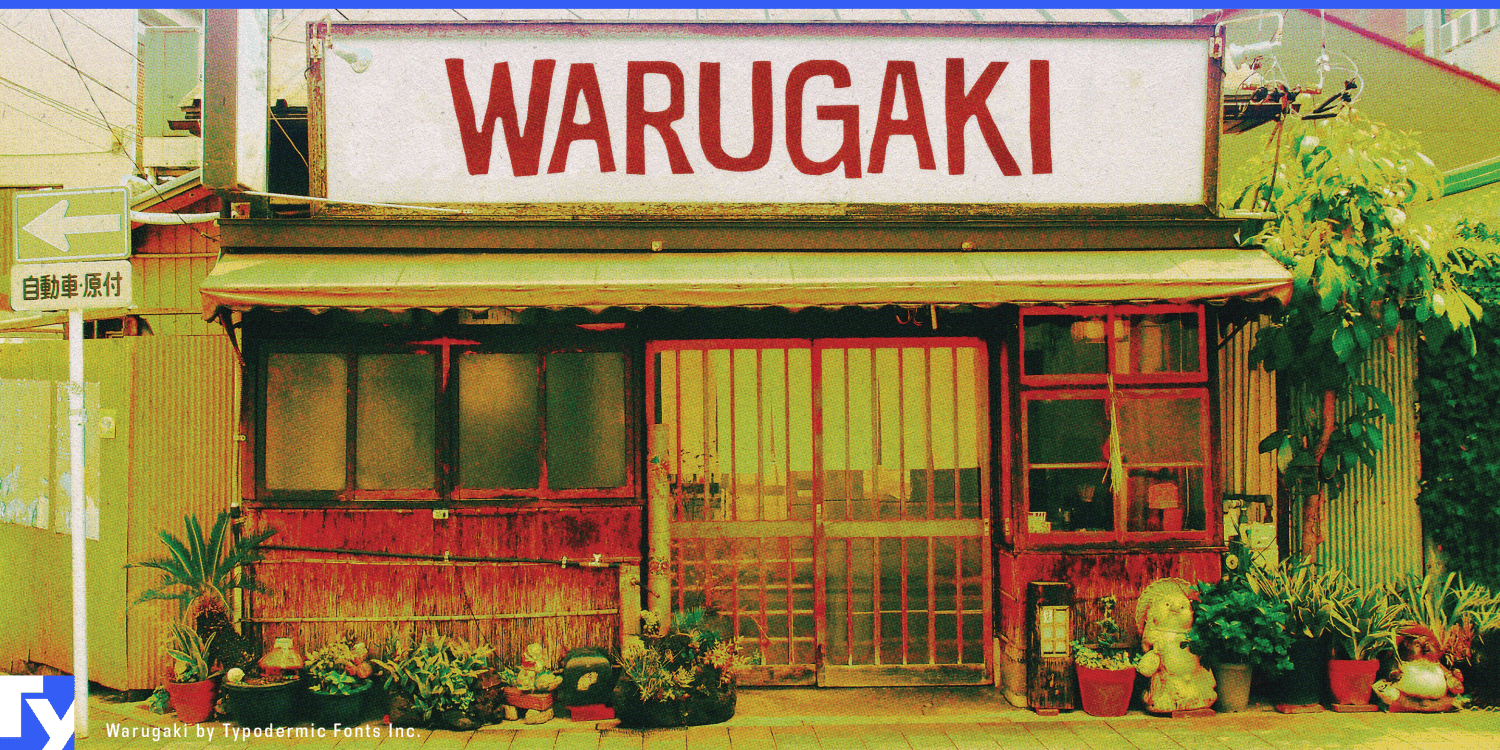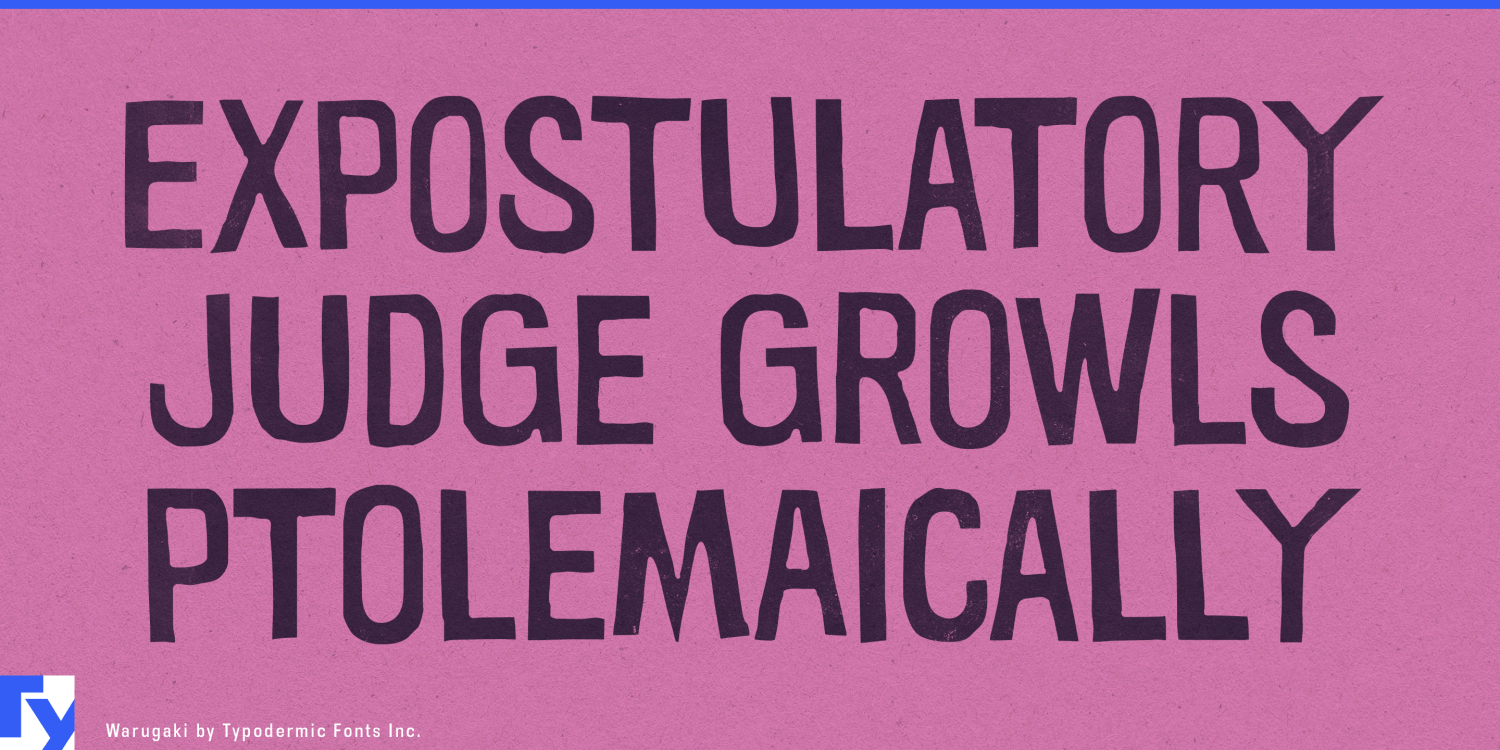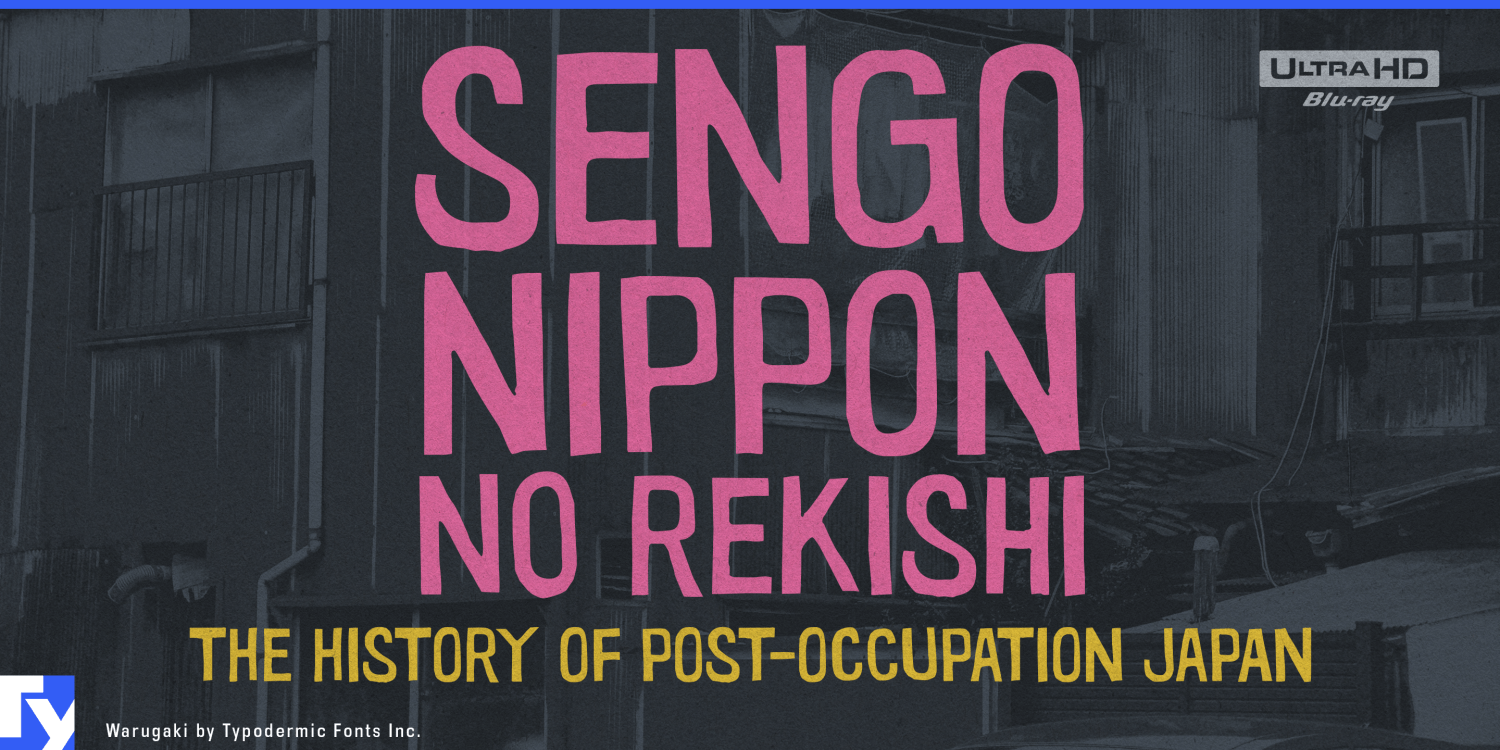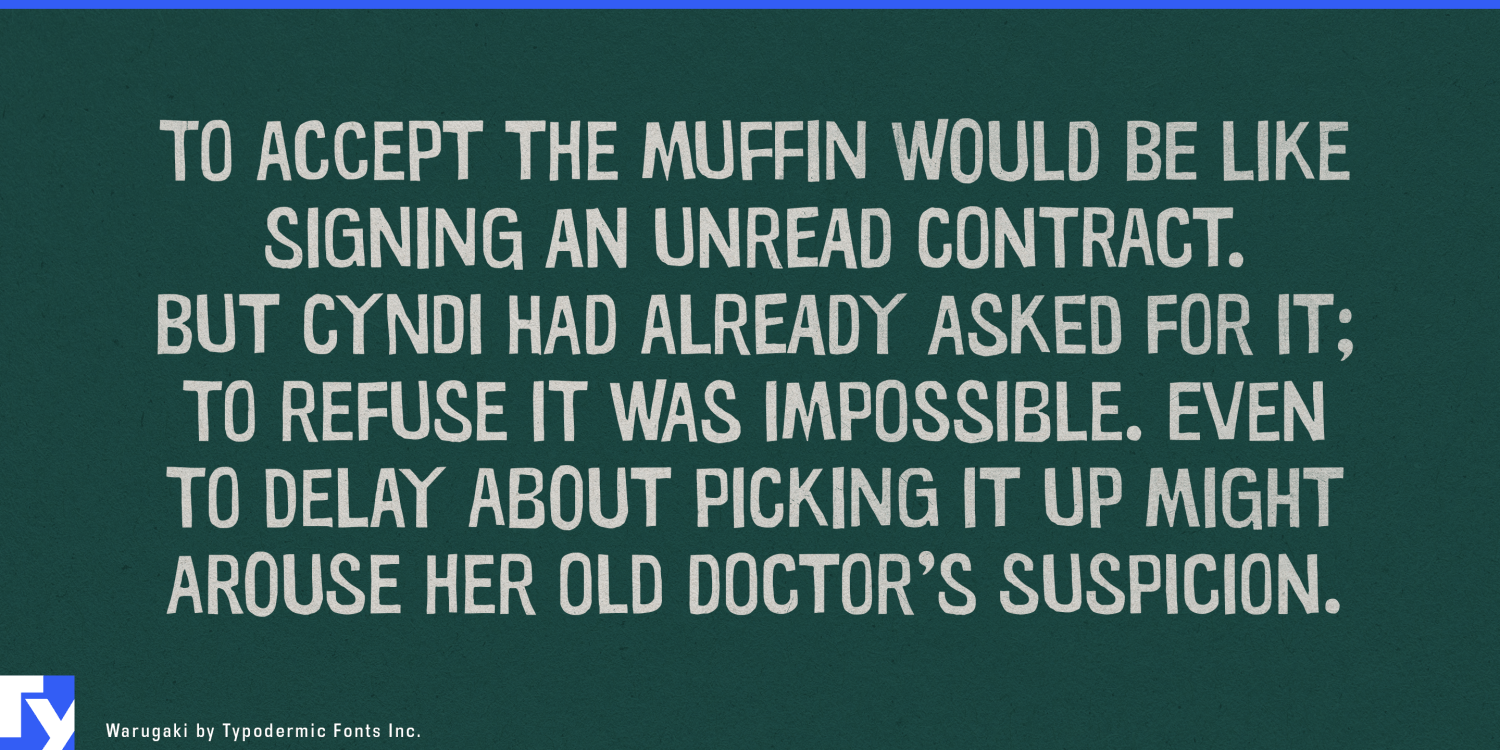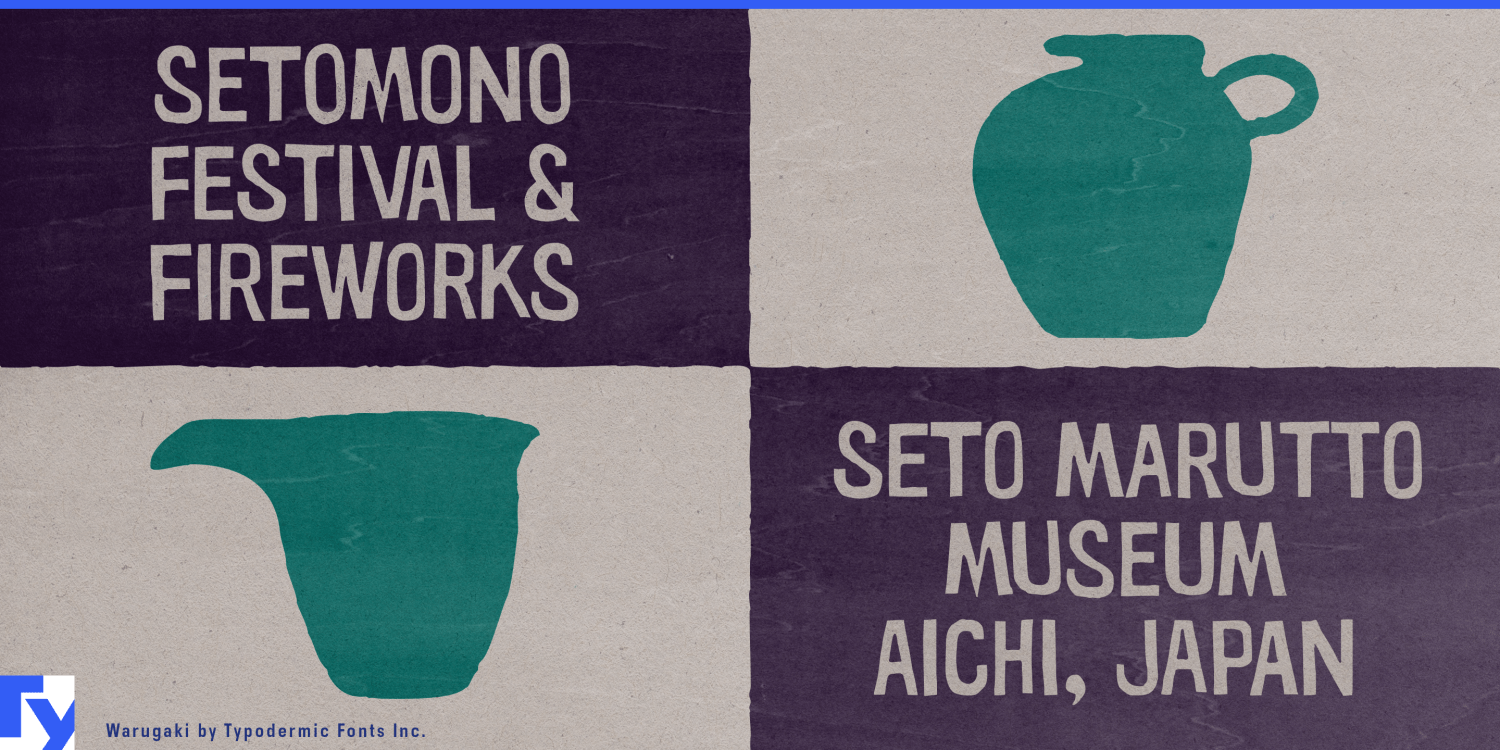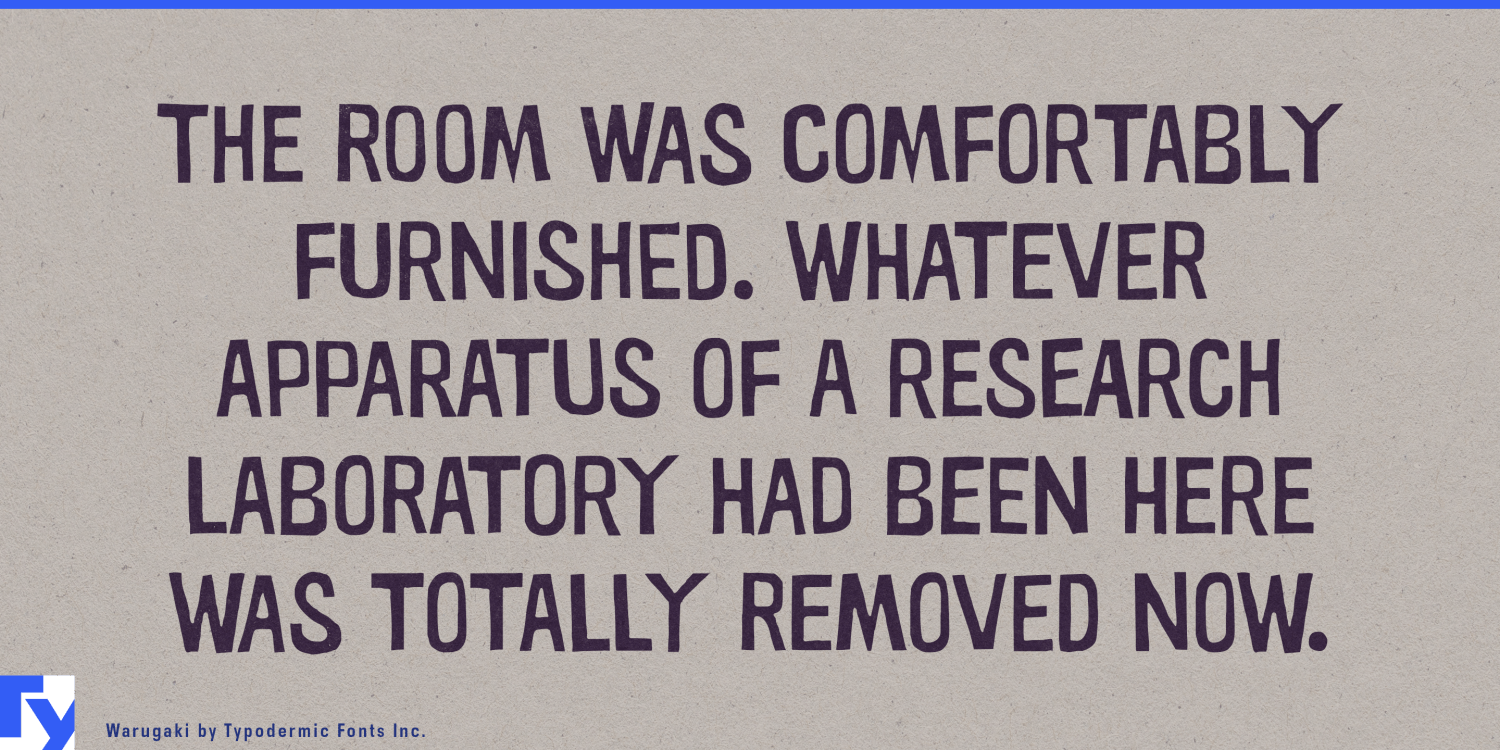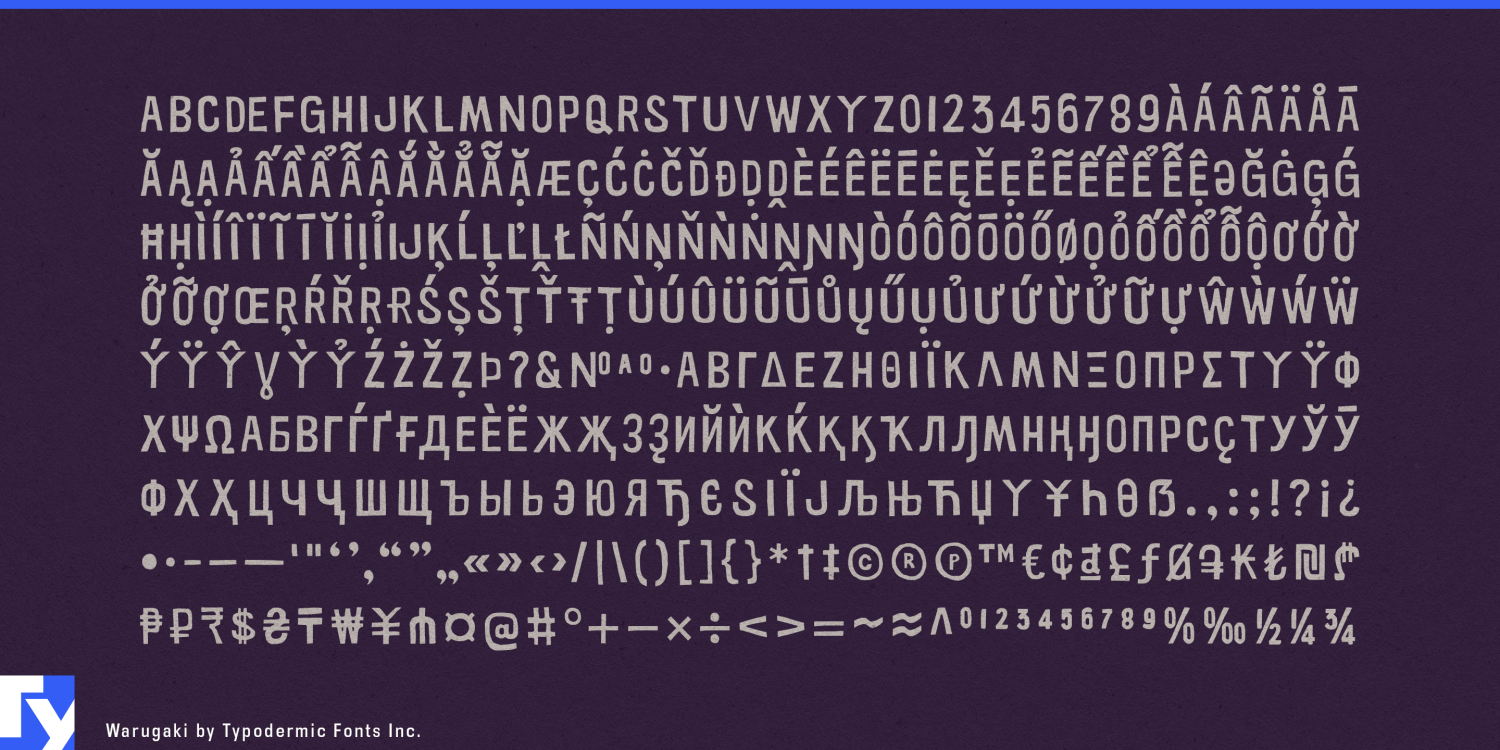
Warugaki
Font Family by Typodermic
Warugaki is for Japanese heritage projects where the English lettering needs to belong to the period too.
A carefully researched Shōwa-era identity can fall apart when contemporary Latin typography is dropped beside old Japanese graphics. A clean modern grotesque looks newly added; generic distressed lettering can push the design toward American workwear or punk; faux-Asian details turn the Japanese connection into caricature. Warugaki takes another route. Its compressed rhythm, carved negative spaces and rough printed surface draw on mid-century Japanese display lettering while remaining unmistakably Latin.
That makes it especially useful for Japanese automotive and motorcycle heritage. Manufacturer museums, historic-model exhibitions, anniversary campaigns, heritage-parts programs and archive merchandise often combine newly written English with photographs, advertisements and brochures from the 1950s through the 1970s. Warugaki can handle model names, decade headings, exhibition titles and campaign phrases without making a Japanese motorcycle or compact car look as though it came from an American hot-rod shop.
Camera, audio and electronics archives offer a similar role. Japanese camera makers, hi-fi companies, musical-instrument manufacturers and consumer-electronics brands can use Warugaki for model-family headings, dates, anniversary graphics and short display phrases that need to sit comfortably beside period product photography.
Film, television and games set in postwar Japan create an even broader need. A fictional Shōwa shopping street may require English shop names, advertisements, nightclub signs, sports graphics, product labels and factory markings alongside Japanese text. Warugaki provides a repeatable display language for that world-building without pretending that Latin letters are kana.
Museums and cultural exhibitions can use the same qualities for projects concerned with postwar Japanese industrial design, household appliances, motorcycles, railway travel, record culture and everyday Shōwa life. Japanese baseball heritage offers another natural fit through throwback-game identities, stadium-history displays, anniversary merchandise and archive campaigns.
Long-established Japanese consumer brands can also use Warugaki when revisiting old packaging, mascots and advertisements for anniversary editions or limited campaigns. Newly created titles and promotional phrases can coexist with the originals without looking digitally immaculate.
Warugaki is not a generic Japanese-style font. Its job is narrower: helping new Latin lettering look as though it belongs beside the signs, products, vehicles and printed matter of postwar Japan.